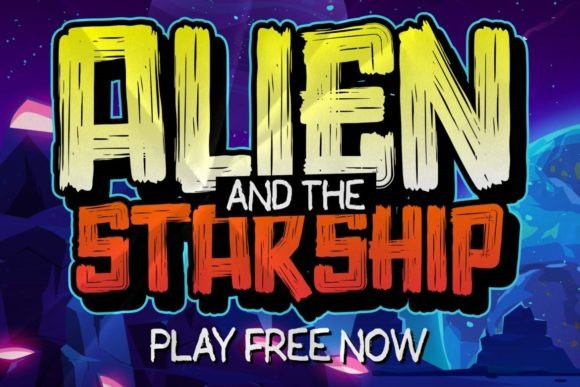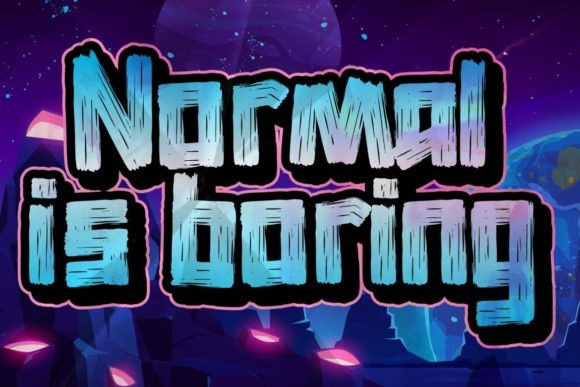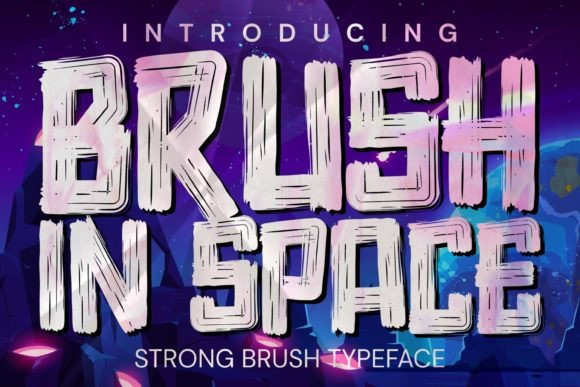
Brush In Space Font
Brush in Space Display Font is a bold and brushed display font. No matter the topic, this font will be an incredible asset to your fonts’ library, as it has the potential to elevate any creation.